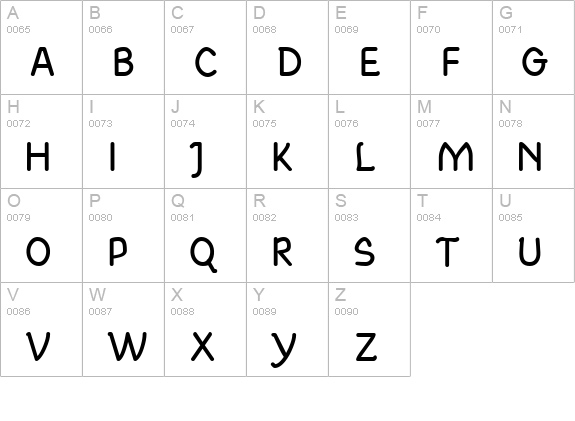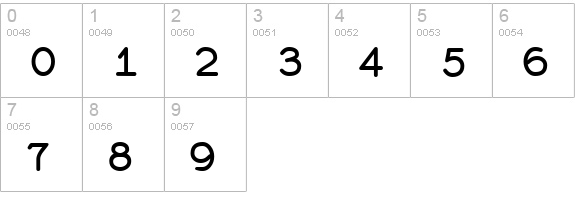
RundigPencil Bold Font Details
RundigPencil Bold is a strong, high-contrast variant in the RundigPencil typeface family \xE2\x80\x94 well suited to headlines, attention-grabbing titles, and strong calls-to-action.
Introducing RundigPencil Bold - a playful and dynamic font that is sure to make your designs stand out! This unique typeface features a hand-drawn style with bold strokes and quirky details, perfect for adding a touch of whimsy to your projects. Whether you're designing posters, invitations, or branding materials, RundigPencil Bold is a versatile font that will bring a fun and energetic feel to your work. Best of all, RundigPencil Bold is completely free to download at FontsMarket.com! That's right, you can add this eye-catching font to your collection without spending a dime. Don't miss out on the opportunity to enhance your designs with the charm and personality of RundigPencil Bold. Download it today and let your creativity soar!